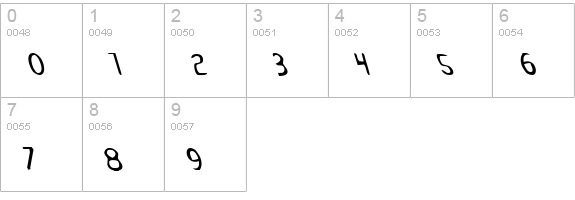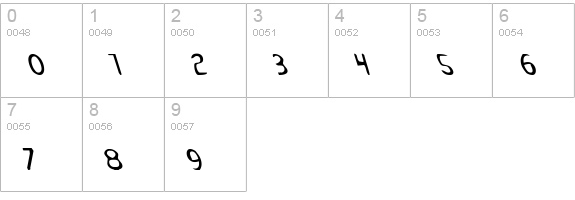
Drafting Table Leftalic font is a unique and modern typeface that brings a touch of elegance to any design project. Its sleek and stylish italic style adds a sense of sophistication and creativity to your text. This font is perfect for various applications such as branding, packaging, logo design, and more. The beauty of Drafting Table Leftalic font lies in its versatility and ability to stand out while maintaining a professional appearance. It is designed to make your text pop and grab the attention of your audience. And the best part? Drafting Table Leftalic font is available for free download at FontsMarket.com. You can easily enhance your projects with this stunning font without breaking the bank. Don't miss out on the opportunity to add a touch of class to your designs with this amazing font. Download it today and let your creativity shine!